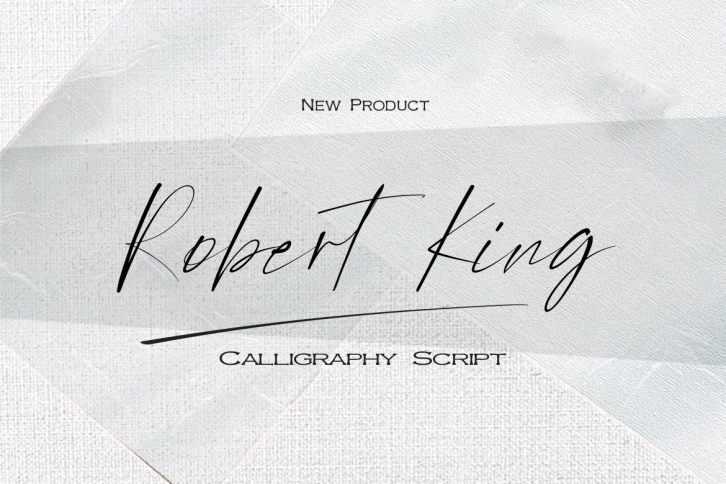
Robert King is a beautiful font that was designed by WinType. It's a great choice for designers and creatives who need such a font. It was released on November 9, 2022 and the file size is 20.88 MB. Robert King may give a more youthful, expressive and casual look to your project. It is a very beautiful, refined, elegant, and high-quality font.